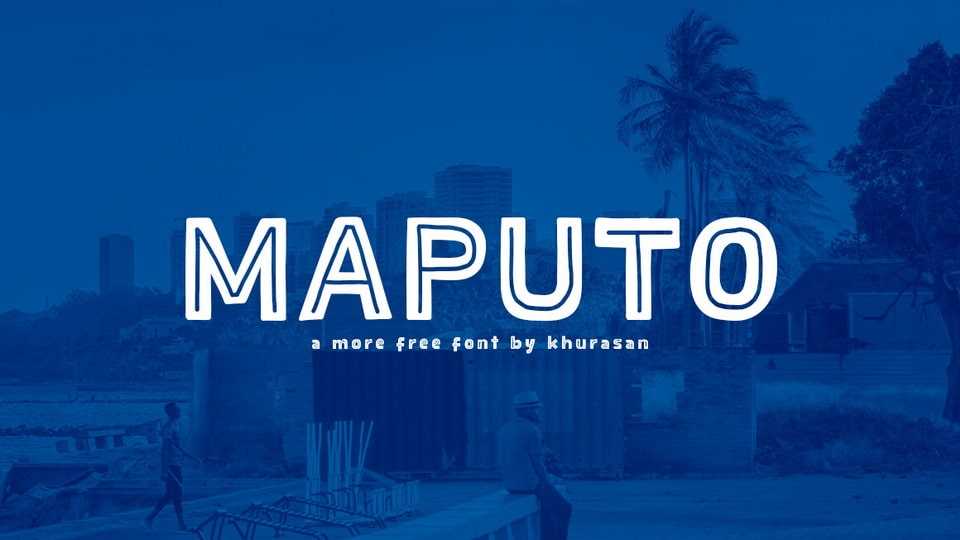
Download Maputo font, a casual hand-drawn typeface that blends the edginess of street art with the fun of cartoon book lettering. Maputo font is the perfect choice when you want to give your designs an urban and playful edge.